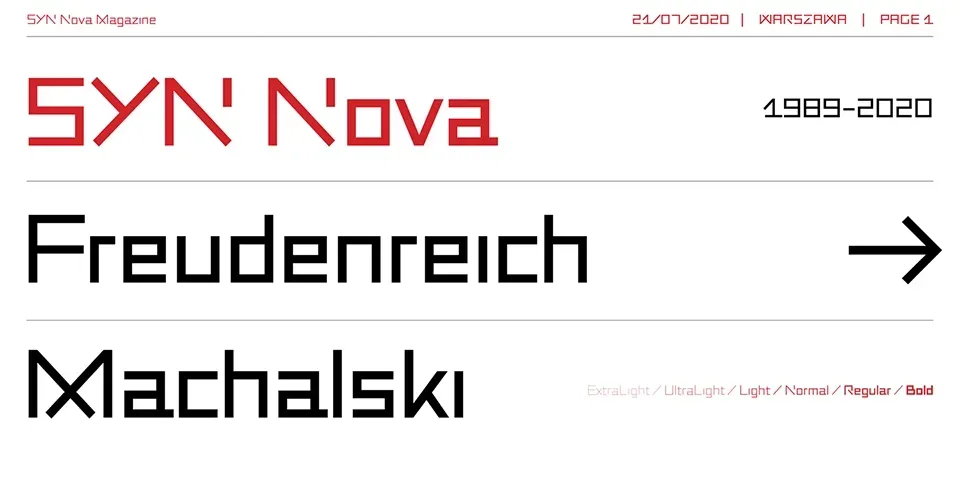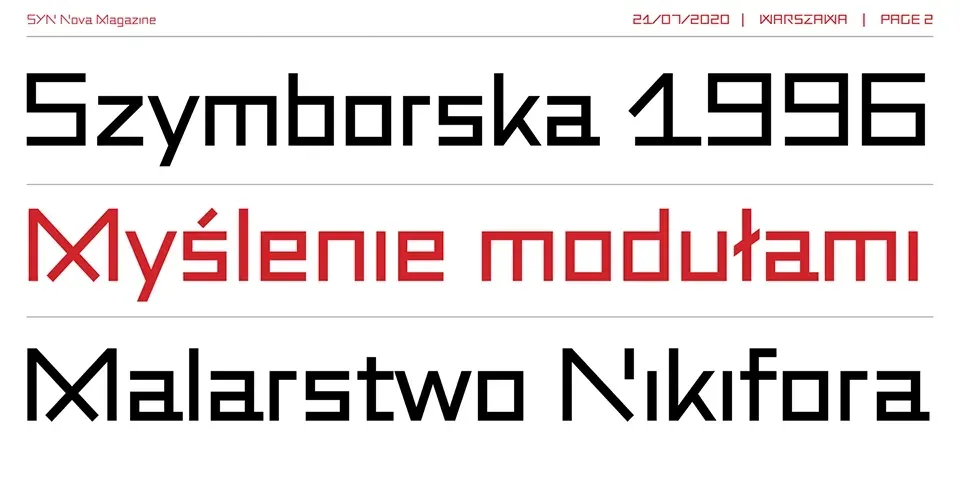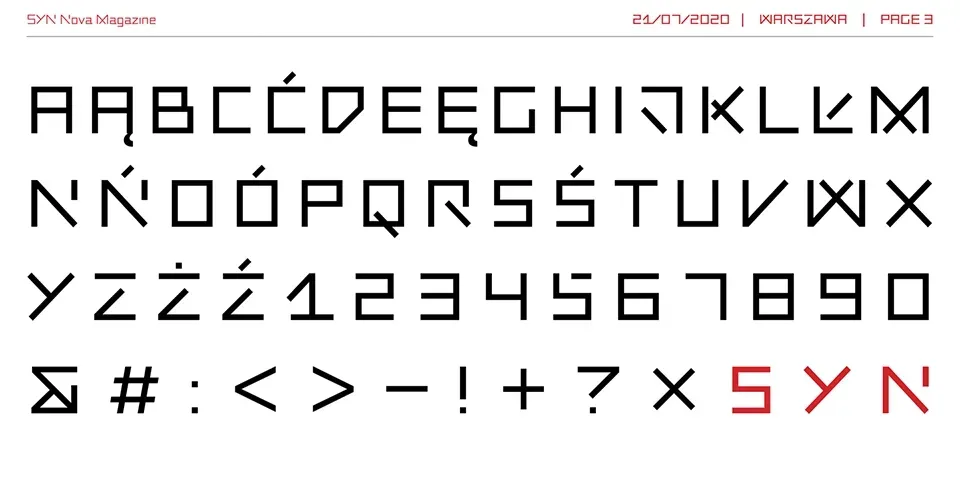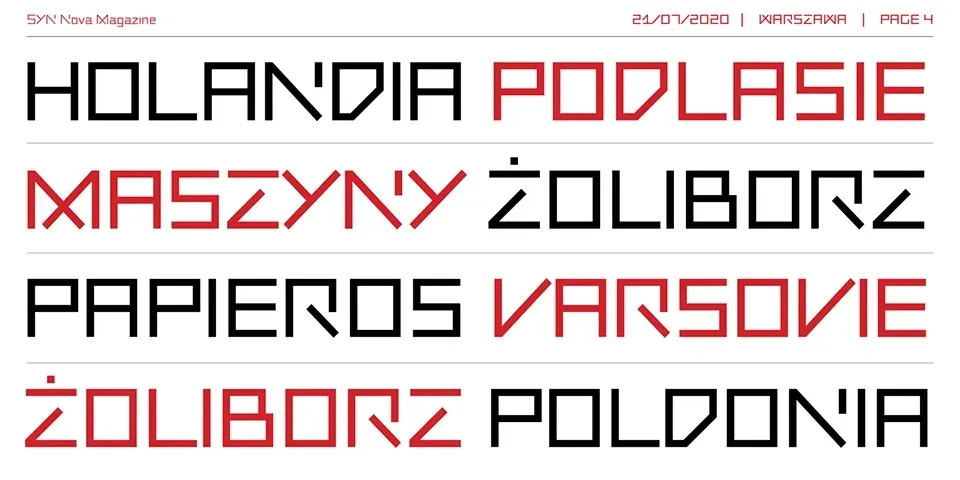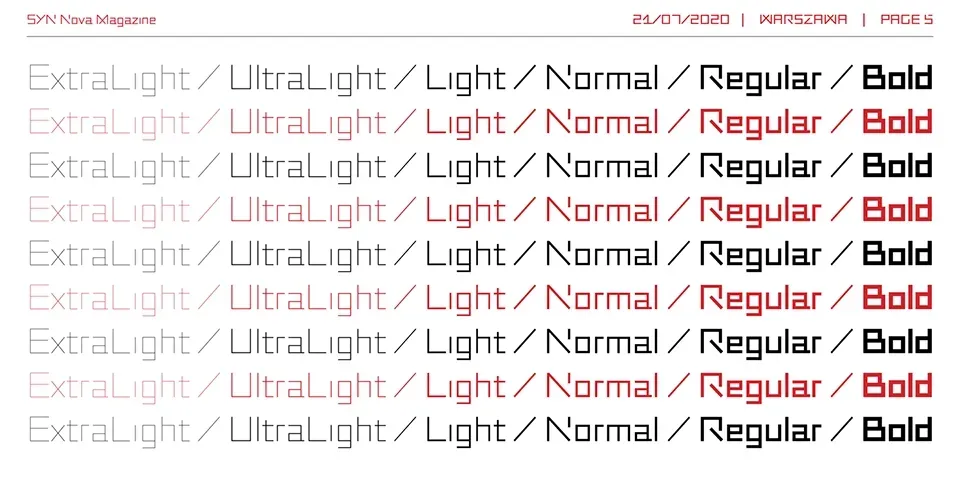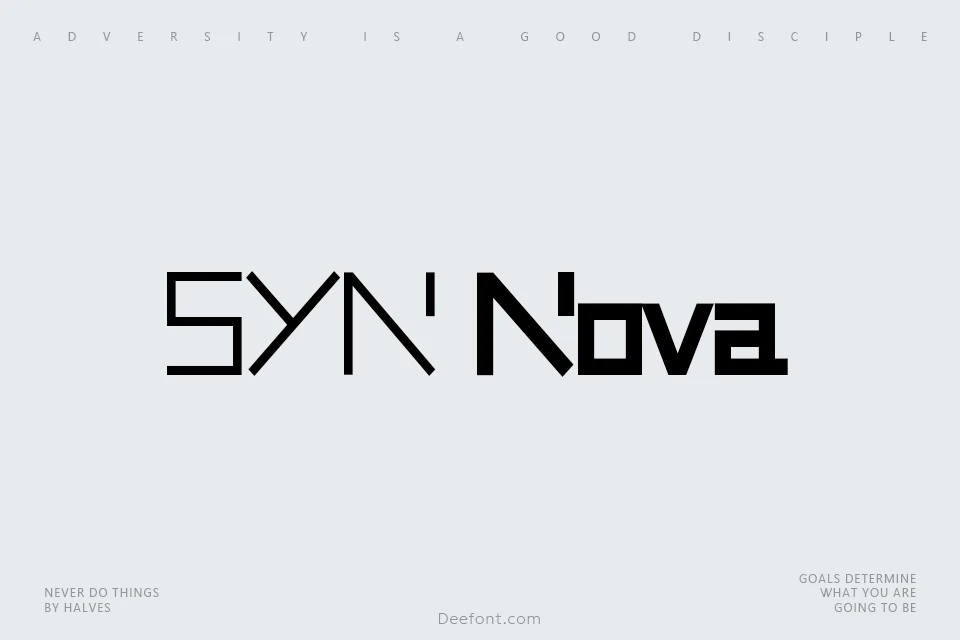
SYN Nova Font Family
SYN Nova Font Family is a modern and versatile font family designed to bring a sleek, futuristic aesthetic to your projects. With its geometric structure and clean lines, this typeface is ideal for tech-inspired designs, branding, editorial layouts, and digital interfaces. The font family includes multiple weights ranging from ExtraLight to Bold, offering flexibility for both subtle and impactful applications. SYN Nova seamlessly combines functionality with style, ensuring readability while delivering a contemporary edge. Whether you’re creating minimalist visuals or bold statements, SYN Nova provides the perfect balance of sophistication and innovation to elevate your design work.
Designed by:Mateusz Machalski, Wojciech Freudenreich Website